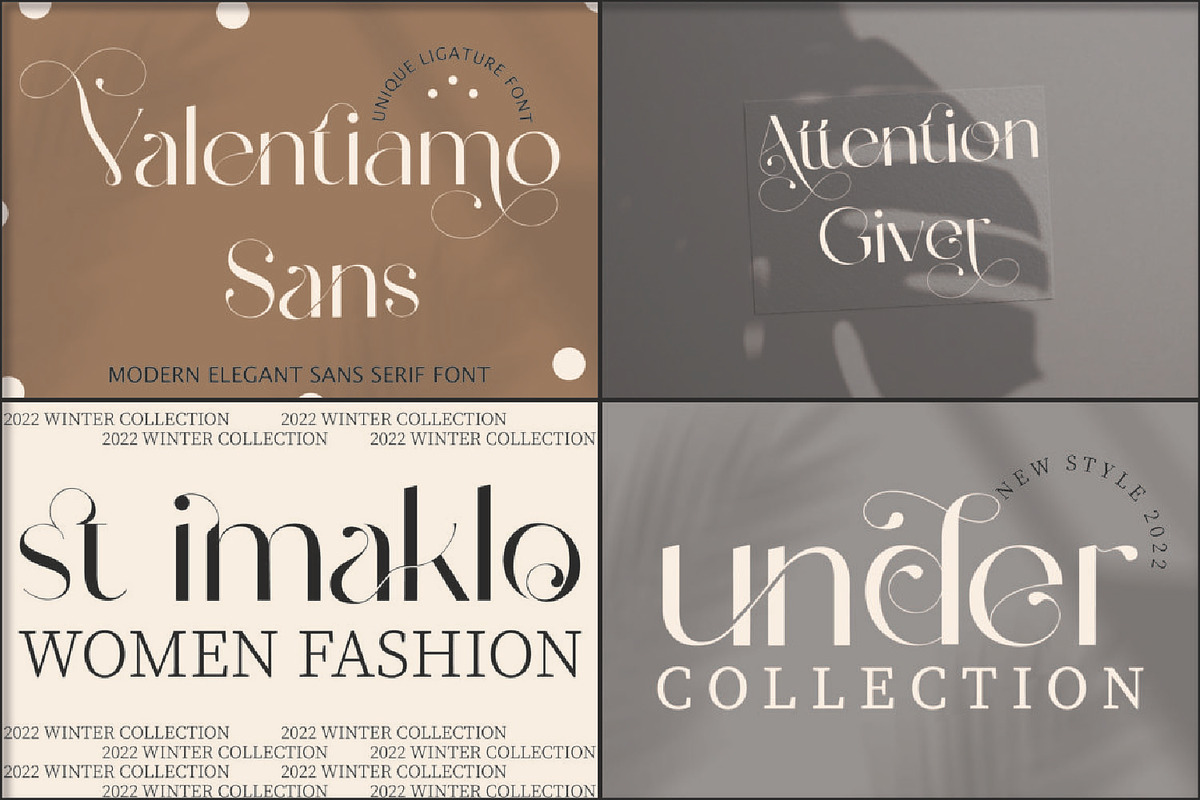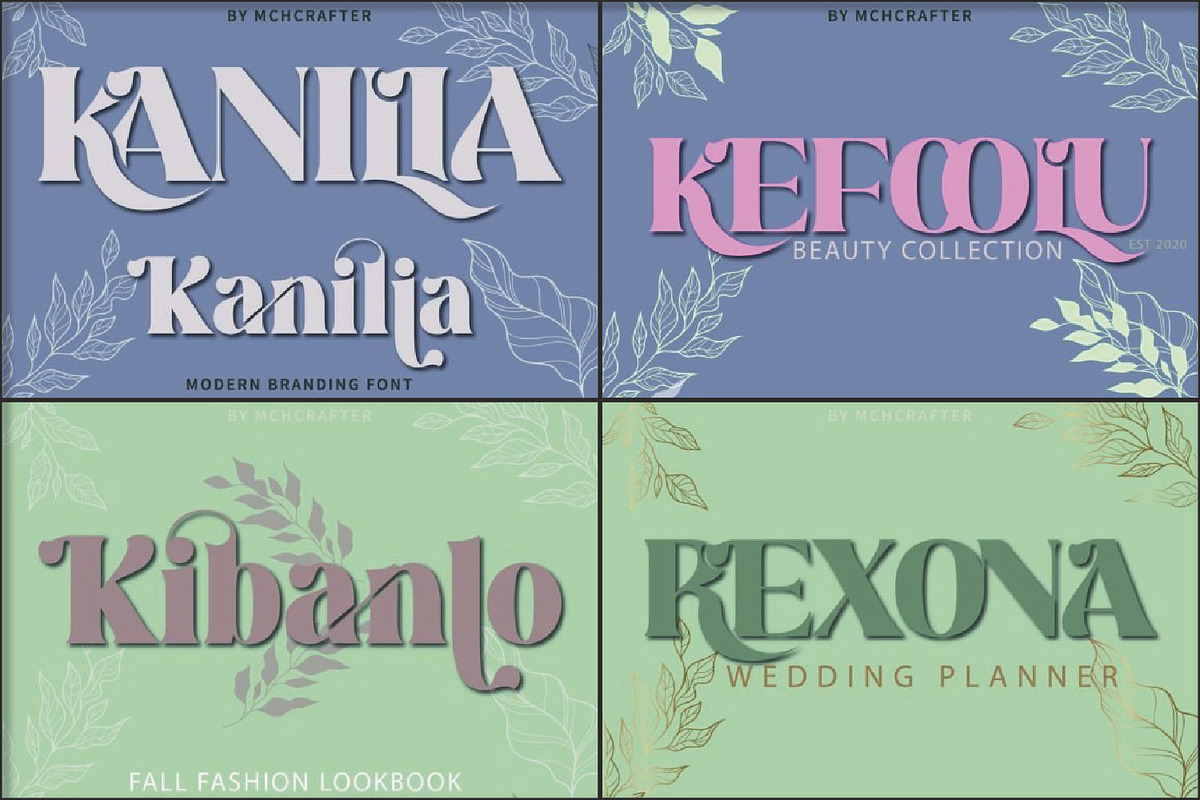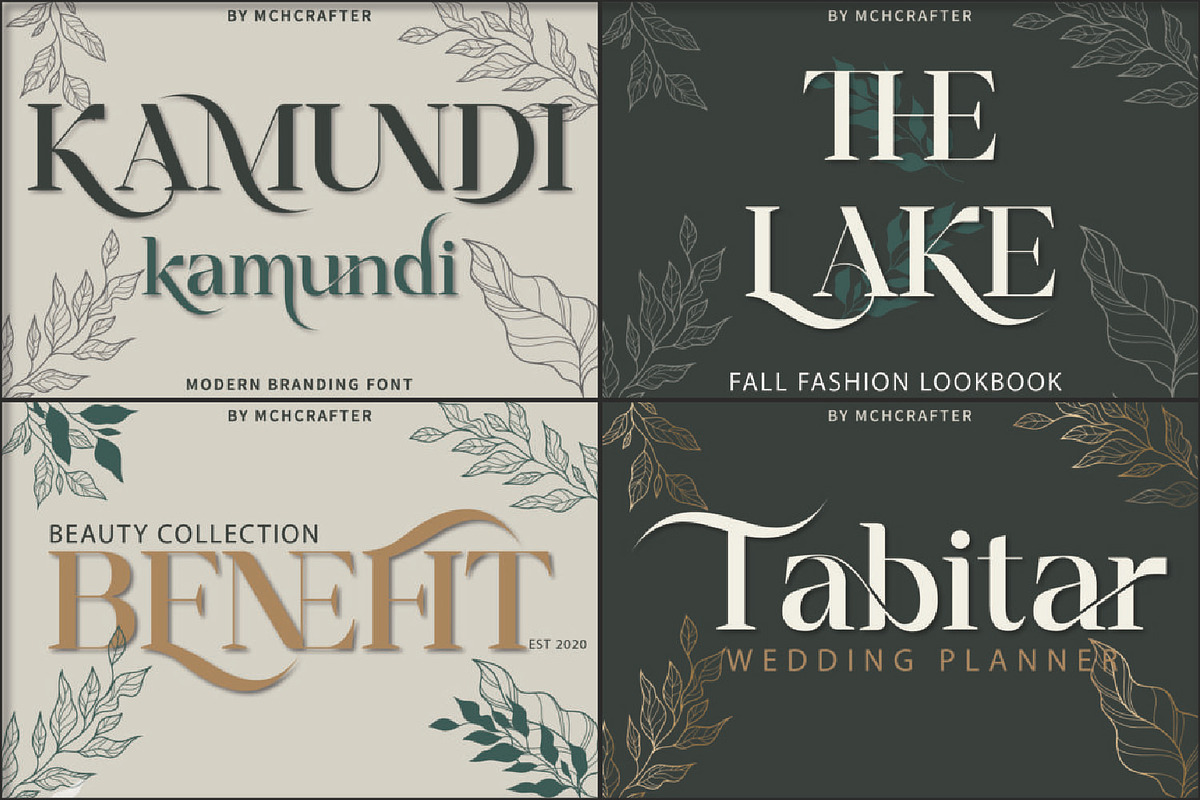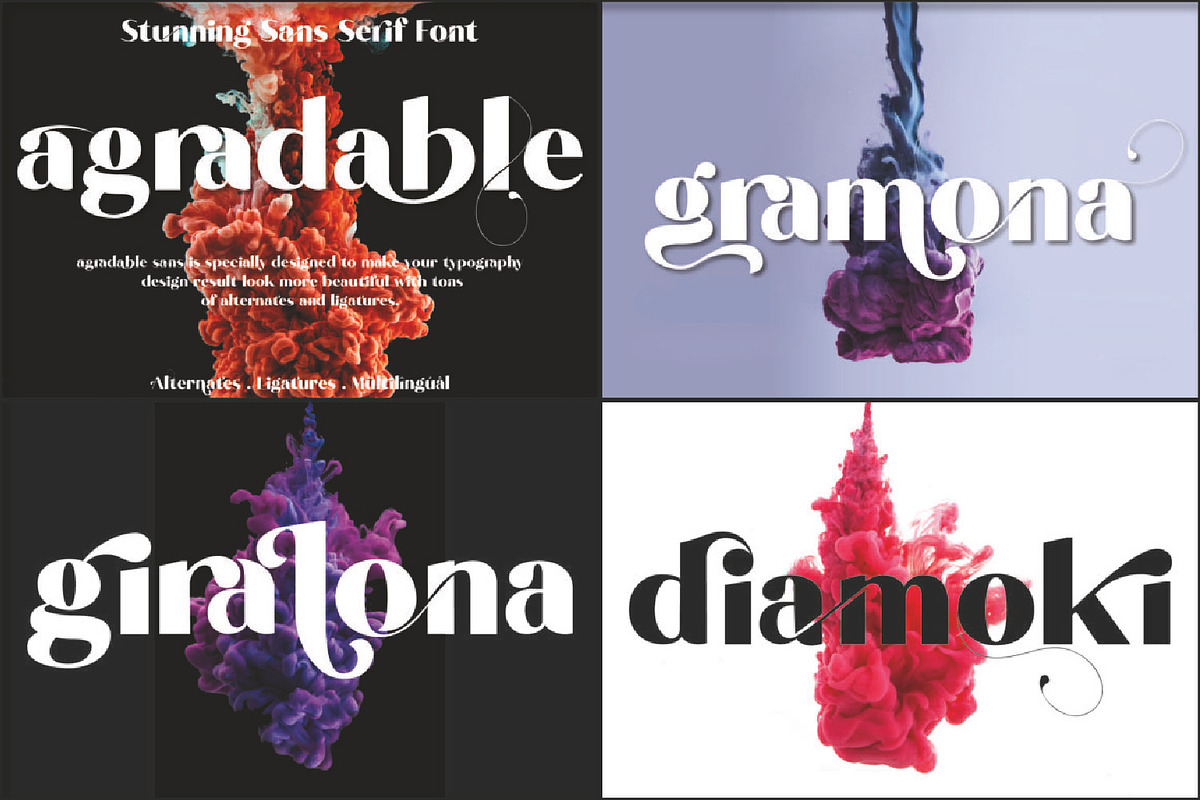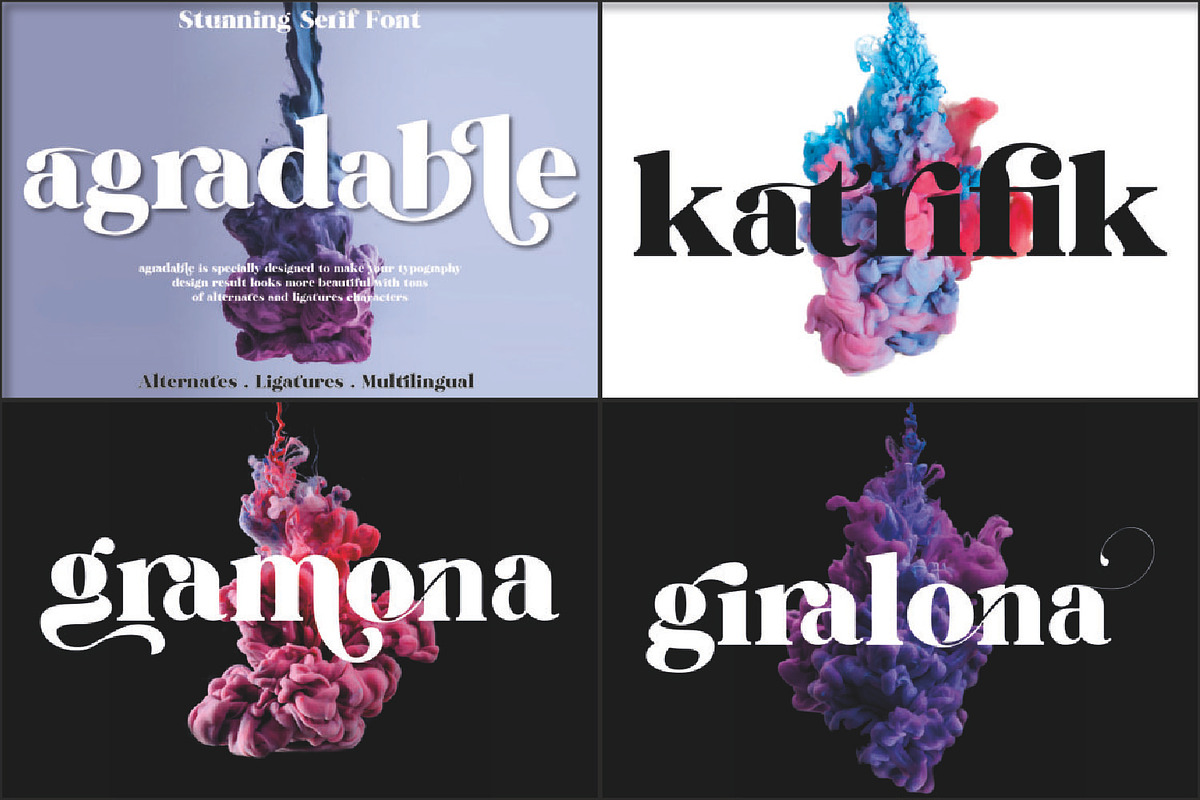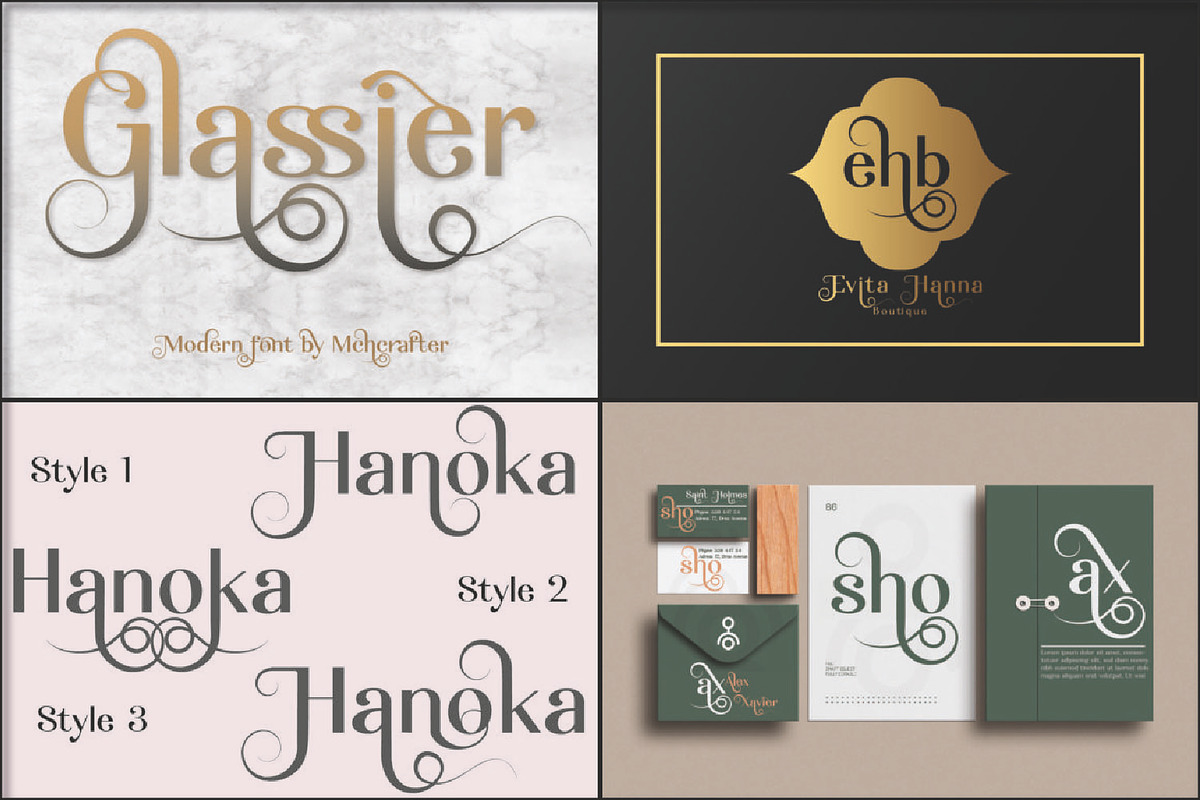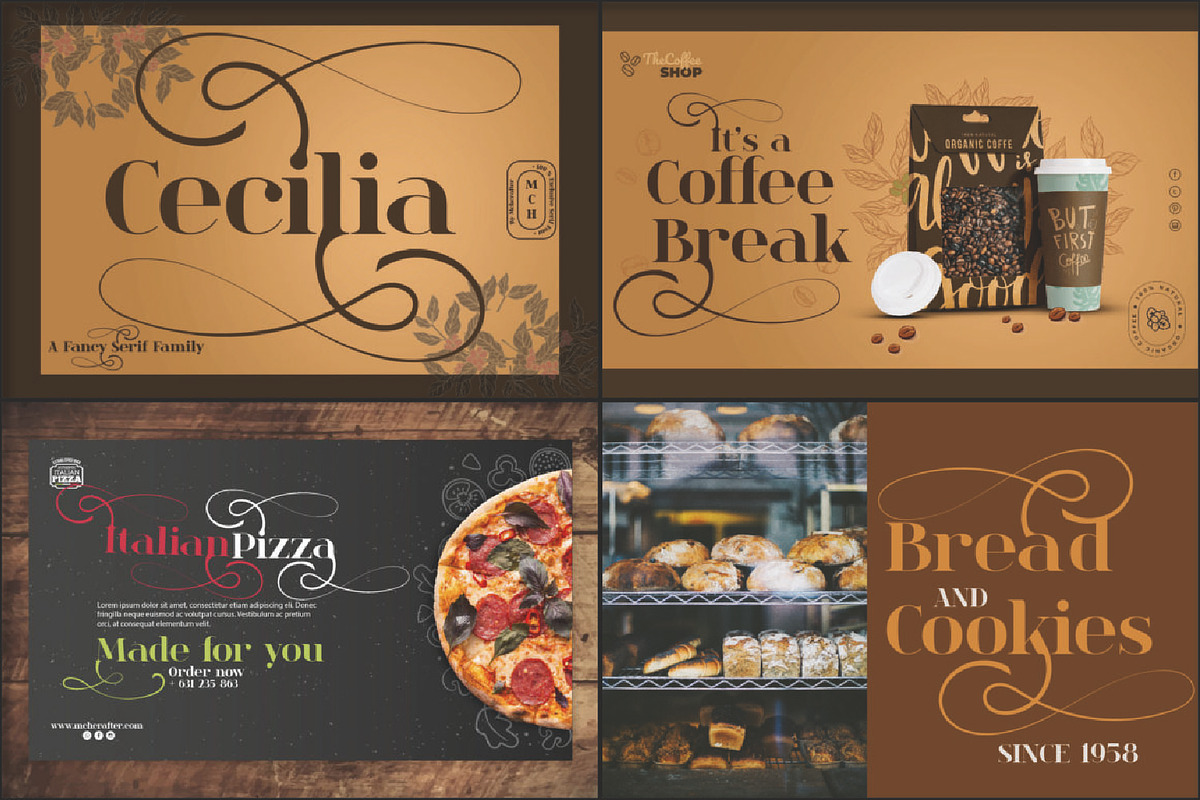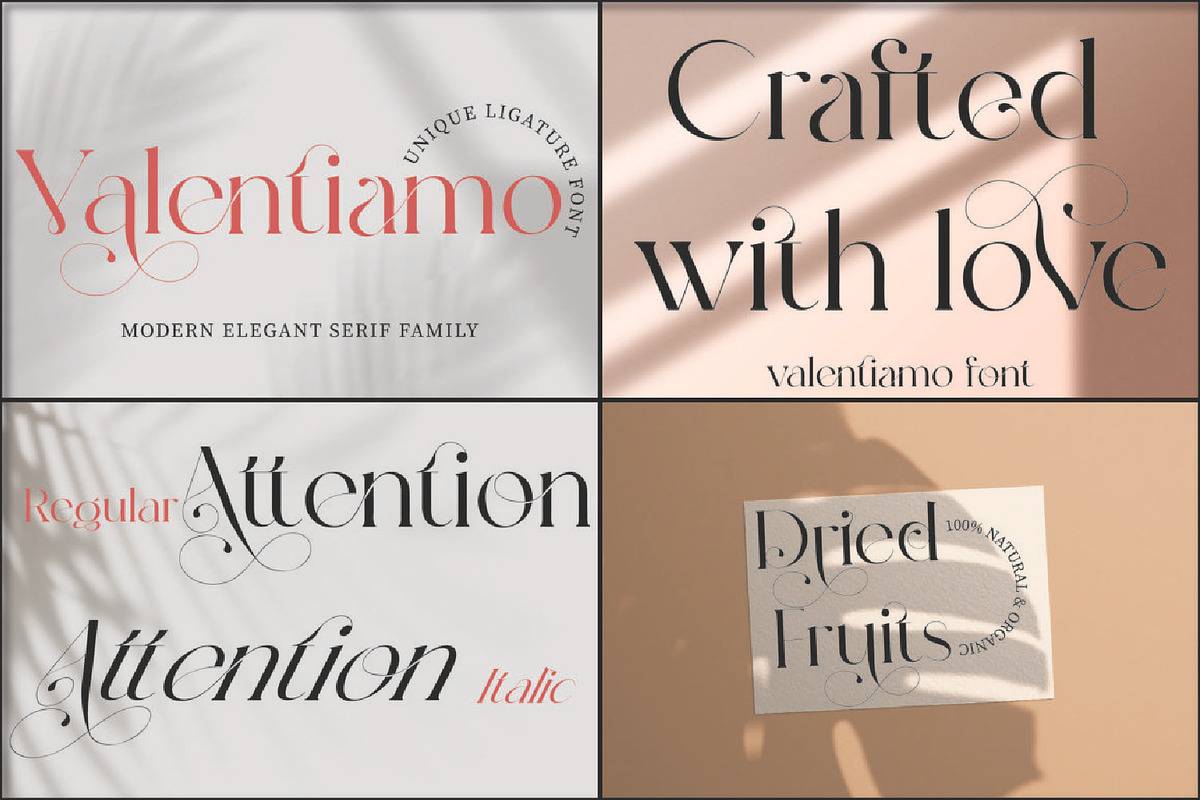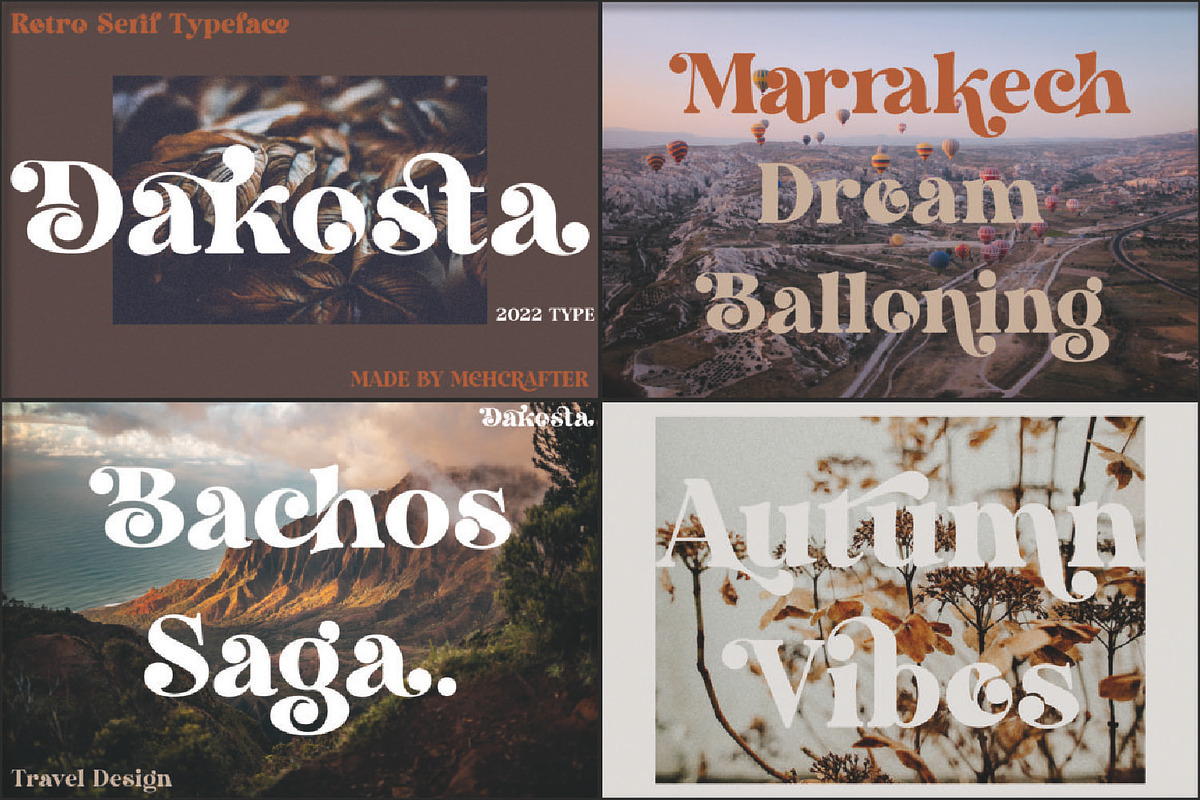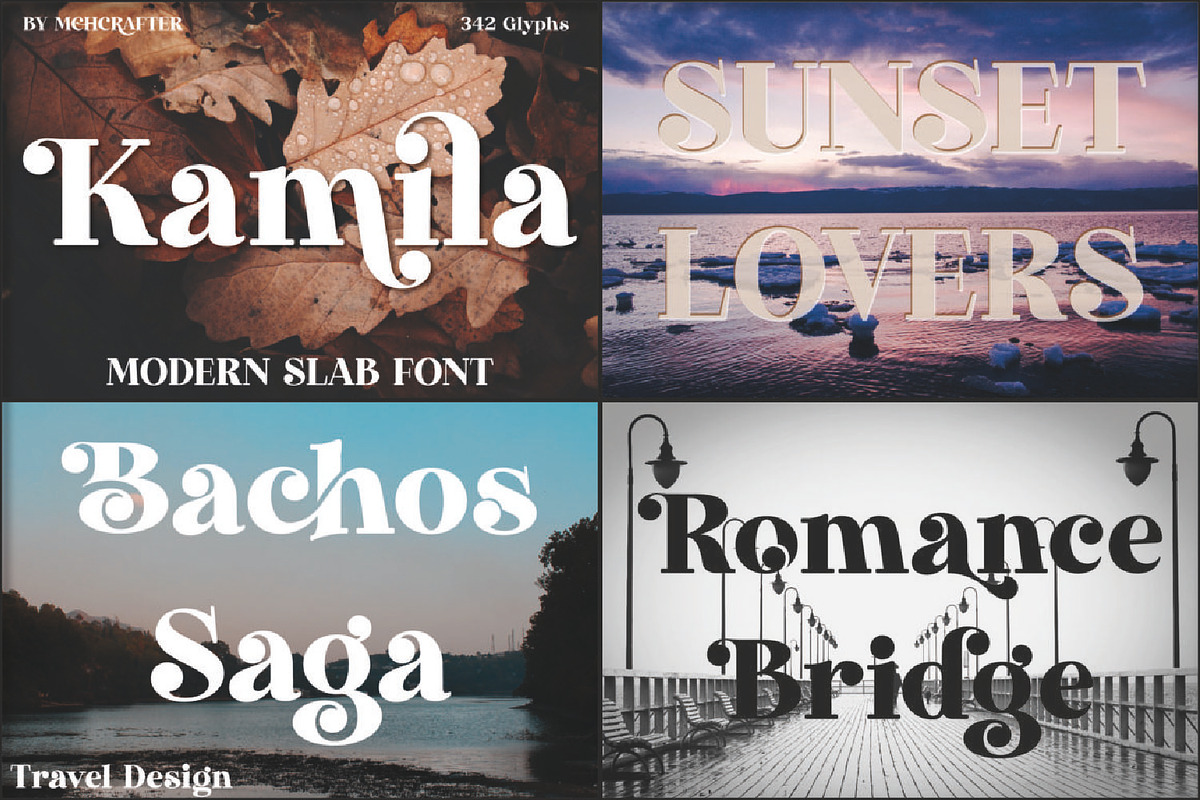
This font Mega Bundle is full of Modern Stylistic Serif and Sans Serif typefaces.
15 + fonts that we created specially for branding needs, with extra ligatures and alternates in a unique shape just to add value to your brand. It so nice to leverage designer or product owner that need solutions to make their design look more stylish and modern. We prepared all the ligatures, and the alternates characters to help you create unlimited variations for your creative needs. Fonts Included:
- DAKOSTA
- Bibalgoski
- Virsace Bigiora
- Glassier
- Valentiamo Sans
- Valentiamo
- Kamundi
- Diem Gibling
- La Vamora
- Lovely Bastilla
- Kanilia
- Tangers
- Agradable
- Kamila
- Agradable Sans
- Cecilia
- Moon Walk